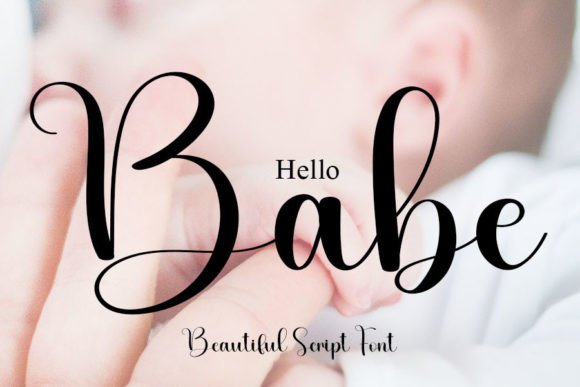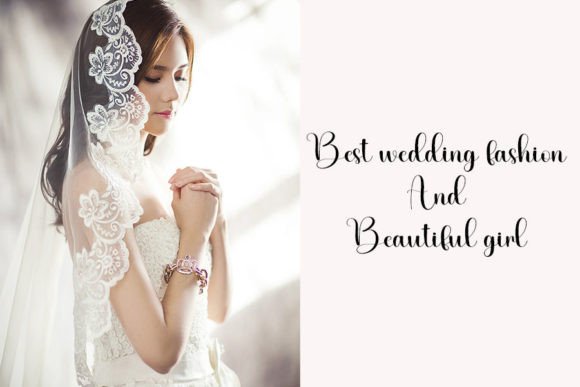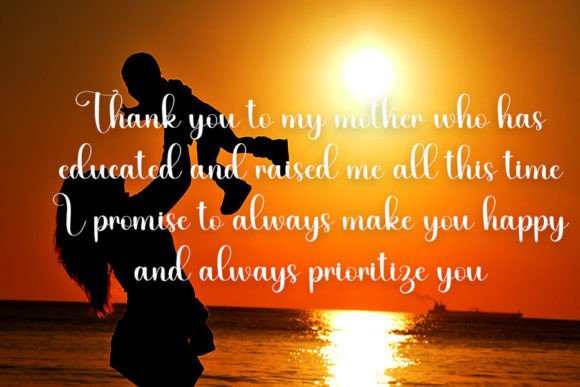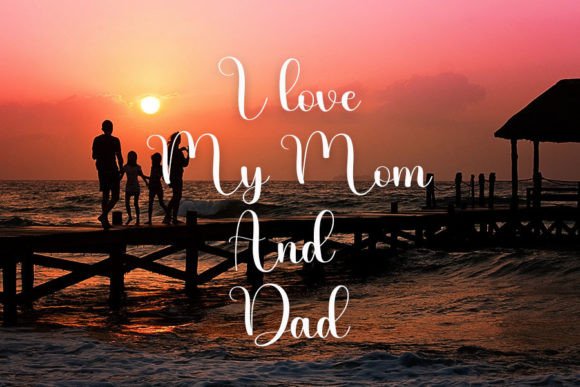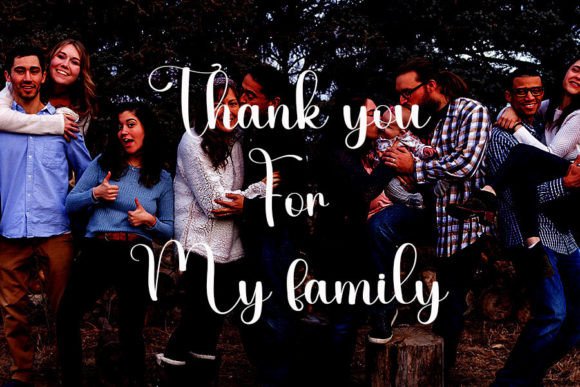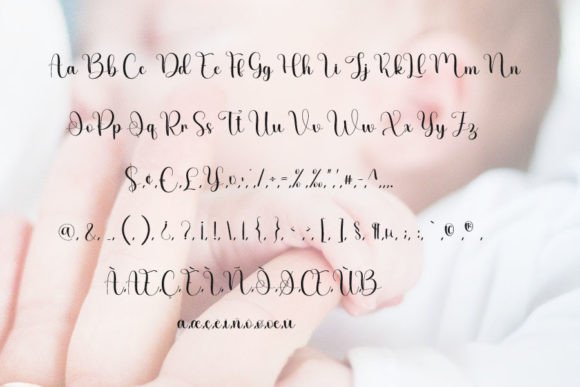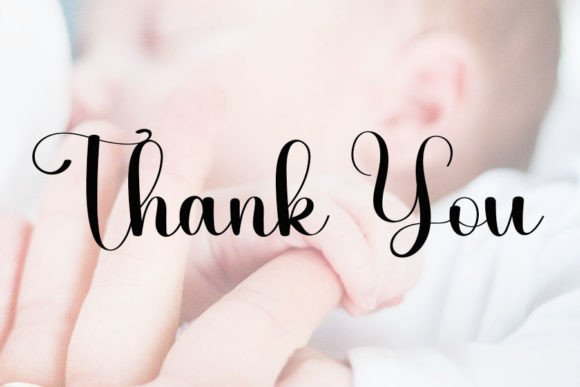
Babe Font
About Babe Font
Babe is a delightful and visually pleasing handwritten font that exudes a sweet and beautiful charm. With characters that gracefully dance along the baseline, this font introduces a sense of movement and fluidity, elevating it to a level of sophistication that adds a luxury spark to any design project you undertake.
The handwritten quality of Babe brings a personal and authentic touch to your text, making it ideal for a variety of creative applications. Whether you’re working on branding, invitations, product packaging, or any design project that requires an elegant and luxurious feel, Babe proves to be a versatile choice.
Picture Babe enhancing the aesthetics of wedding invitations, introducing a romantic and luxurious spark to the celebration. Envision it gracing product packaging, creating a visual experience that resonates with consumers. Whether used in digital or print media, Babe stands out, leaving a lasting impression on your audience.
In essence, Babe is not just a font; it’s a design element that brings sweetness, beauty, and a touch of luxury to your projects. Let it be the spark that enhances the overall appeal of your creative endeavors, making them truly captivating and memorable.